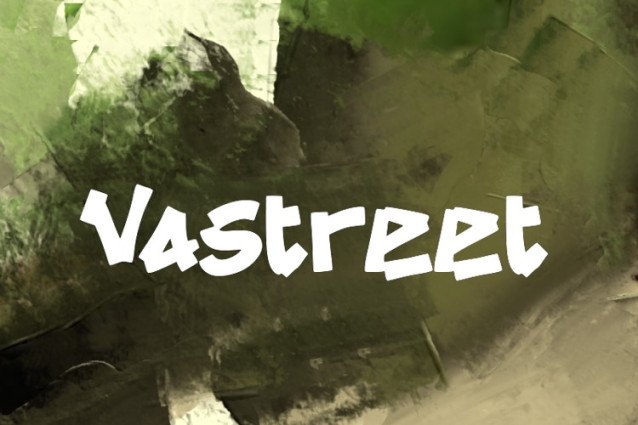
Vastreet Font
Vastreet Font, is a chunky, comic, and cartoon display font. With its neat and joyful personality, this font will enhance any project you wish to create!